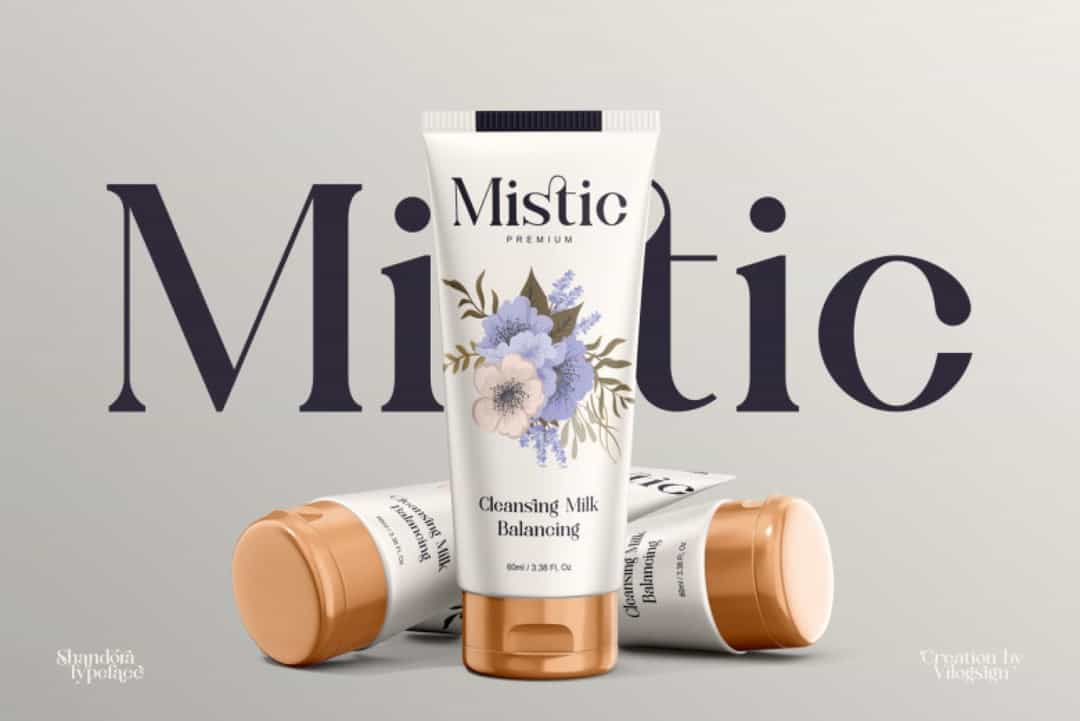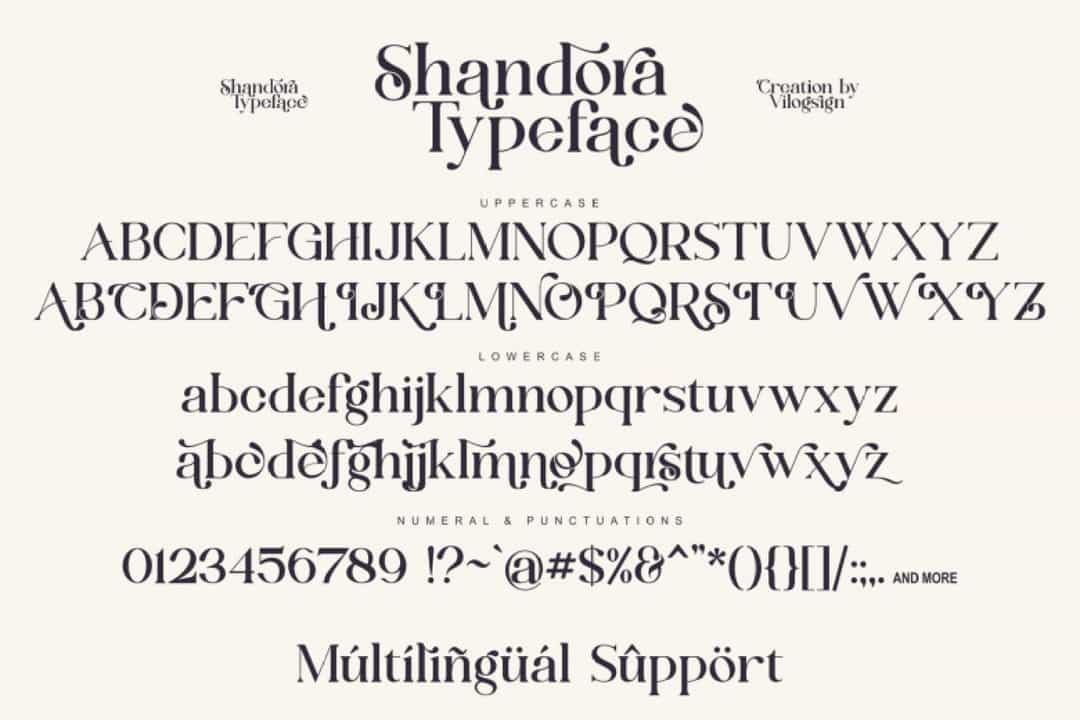
Shandora is a striking and distinguishable serif font with bold, eye-catching features that makes an impactful statement. It boasts a modern, sleek and stylish aesthetic, ideal for branding applications, logo design, invitation cards, stationery designs and social media posts! Plus there’s more!